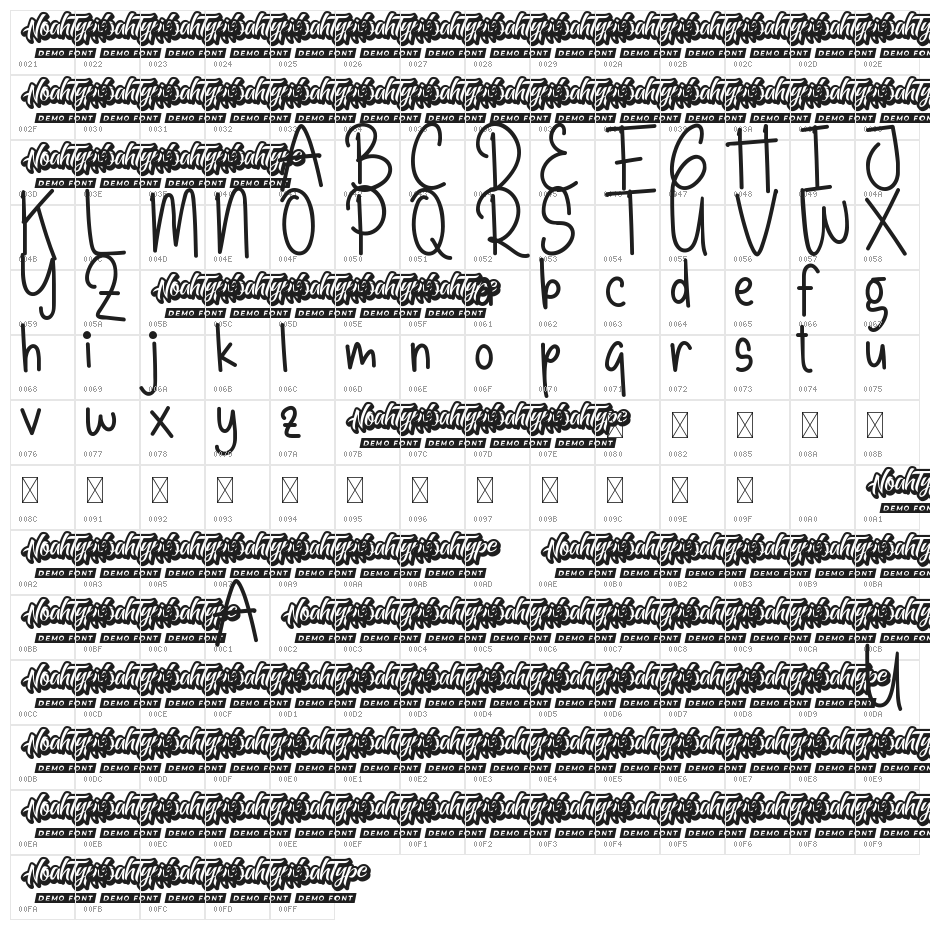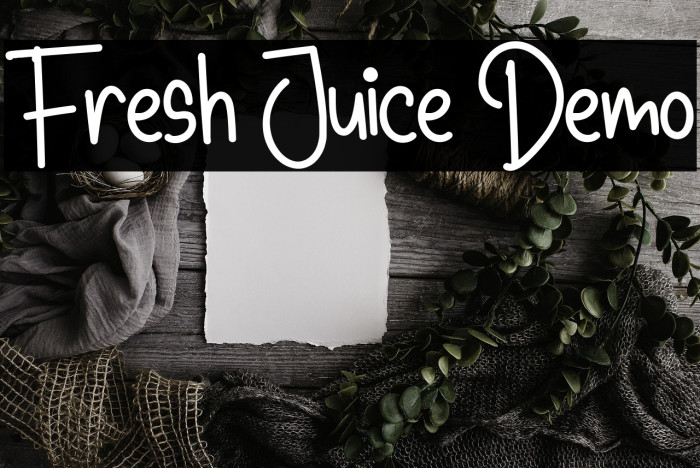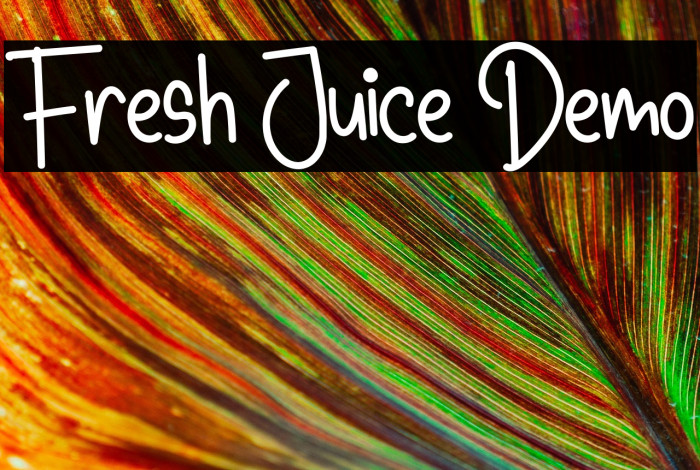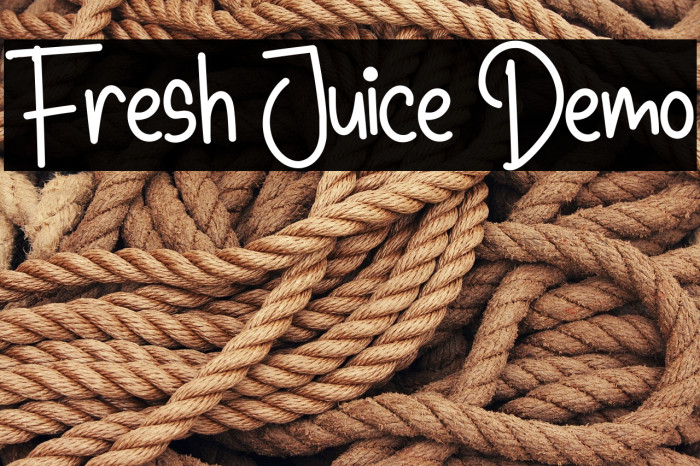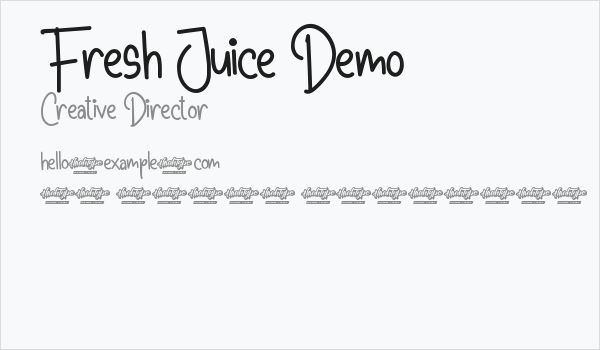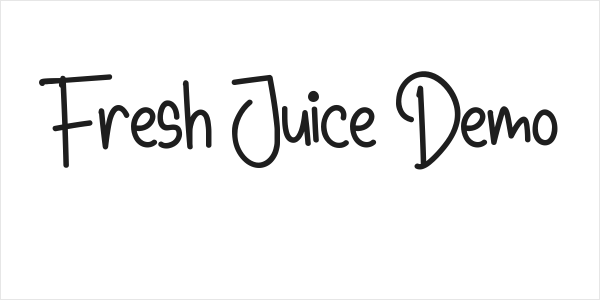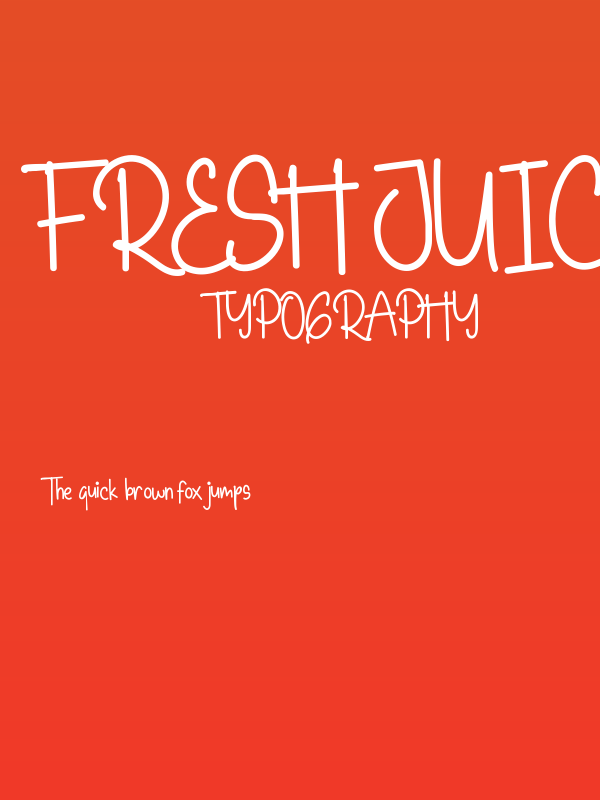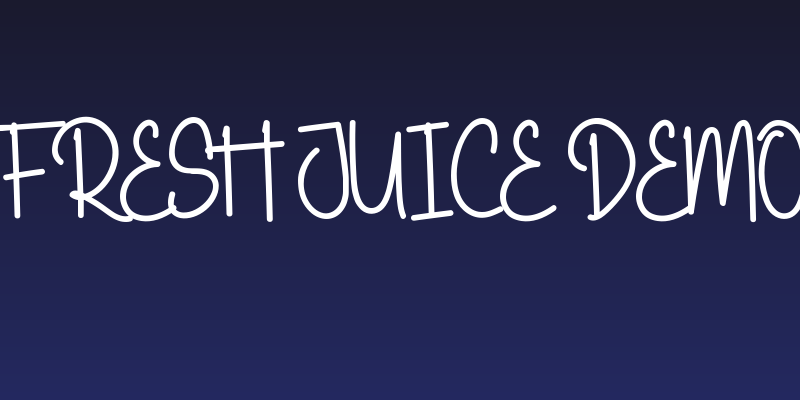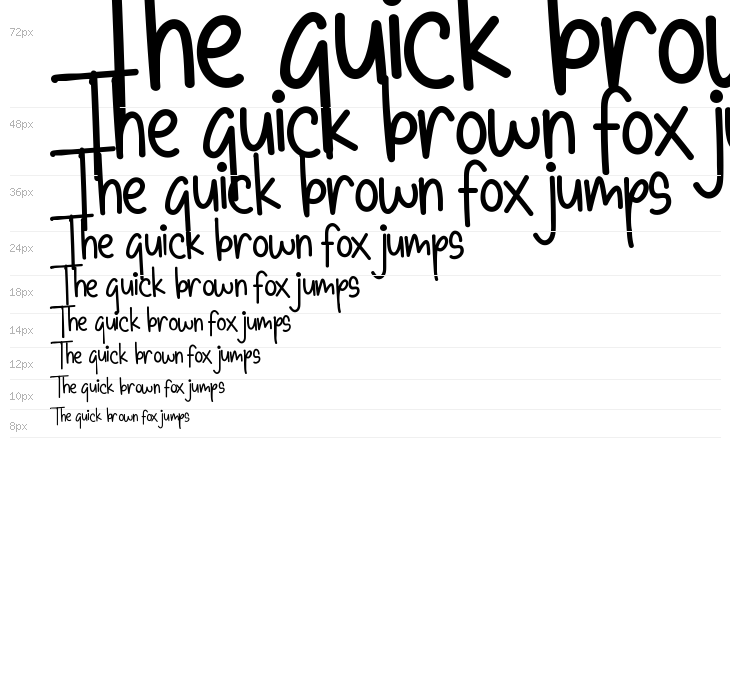
Fresh Juice Demo Font
Fresh Juice Demo Description
This font features a playful and casual handwritten style, characterized by its smooth, flowing lines and slightly irregular shapes. The uppercase letters are tall and narrow, while the lowercase letters are more rounded and compact, creating a dynamic contrast. The strokes are consistent in thickness, giving the font a cohesive appearance. The overall look is friendly and approachable, making it suitable for informal and creative projects. The font includes a full set of uppercase and lowercase letters, numbers, and a selection of special characters, ensuring versatility in design applications.
| Use Case | Logos, Headlines, Informal Text |
| Proposed Projects | Ideal for greeting cards, children's books, playful branding, and social media graphics. |